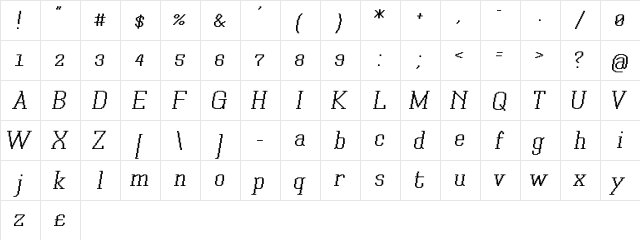
Xilla Pro Pro-Medium-Italic
| Designer | Will Albin-Clark |
Design Context for Xilla Pro Typeface
Xilla Pro offers clean, dependable letterforms without strong stylistic allegiance, making it a practical choice for designers who need flexibility. The dynamic lean of this cut emphasises speed and emphasis in any layout.